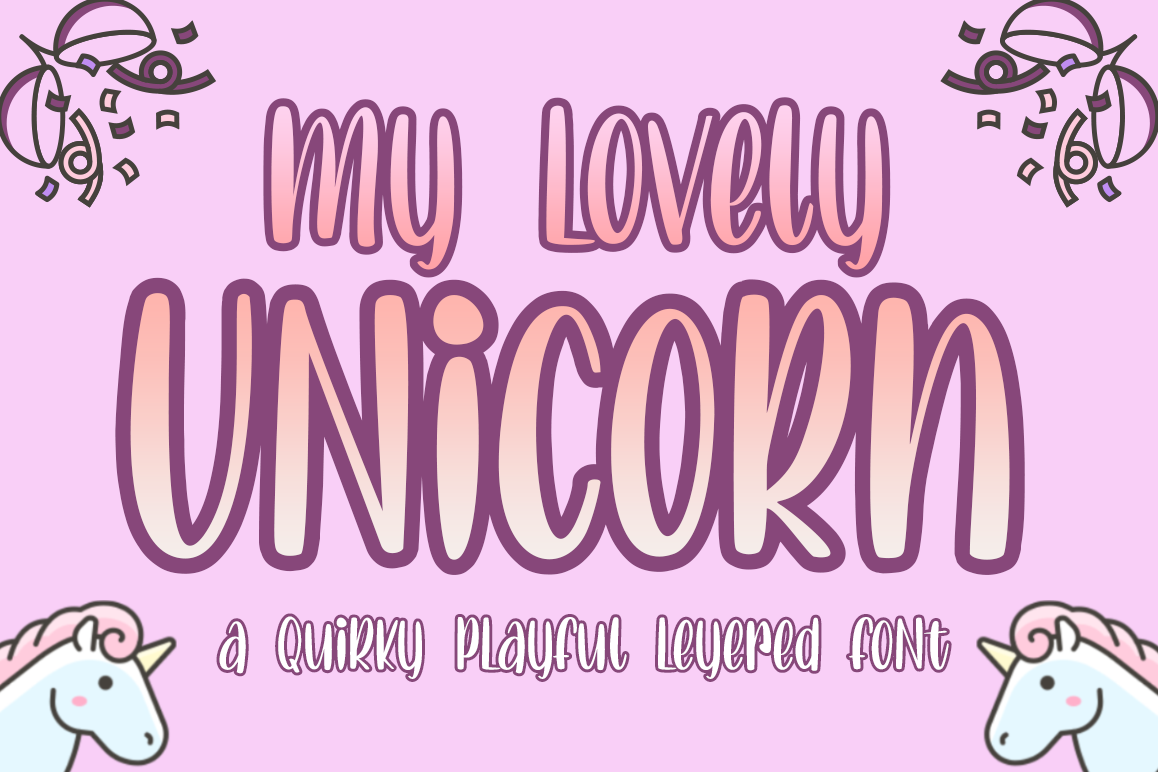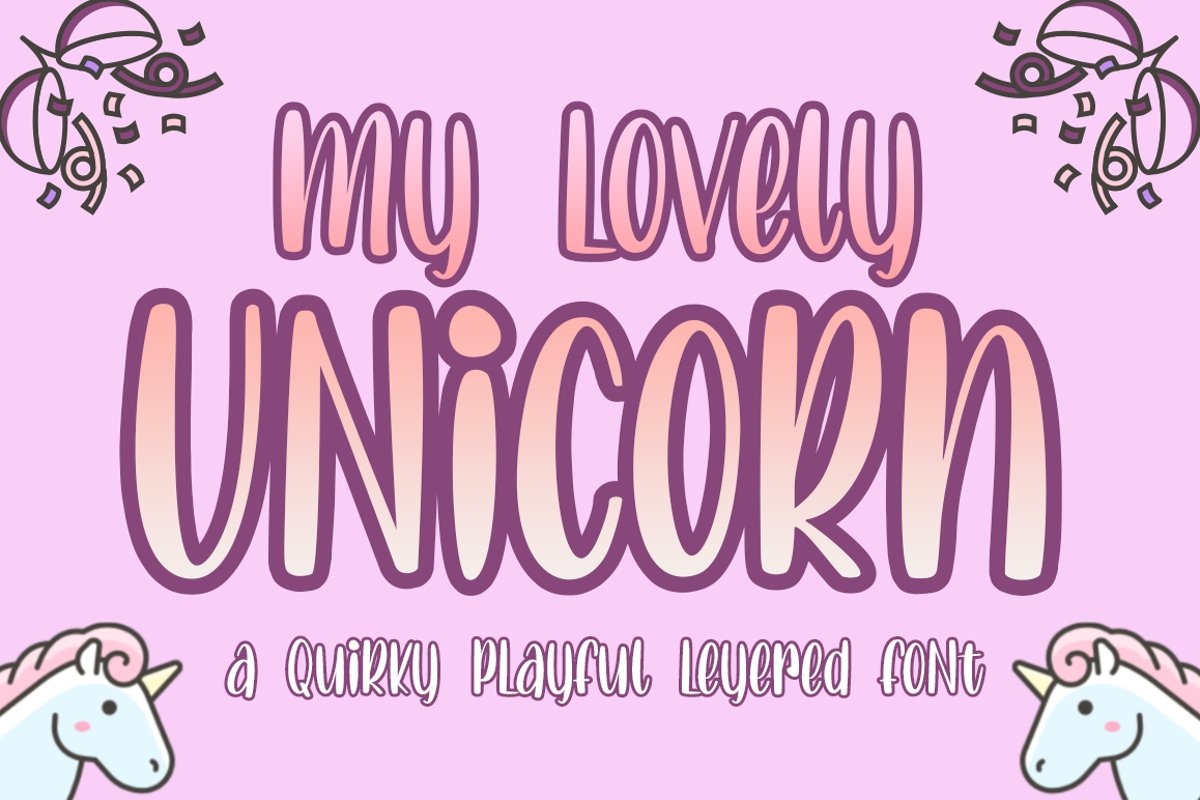
Lovely Unicorn the Quirky Playful Font
Lovely Unicorn
Lovely Unicorn Shadow
Lovely Unicorn Slant
I would like to present my new collection font with Quirky display style.
Lovely Unicorn comes with natural taste of handwritten. with the real hand done I created them, also additional Shadow for a layered font to make good sensation feel.
When you type with this font, I believe you will enjoy the sensation of the natural feel of this font, equipped with ligatures and extrude features make the display even stronger for your projects such as posters, logos, advertisements, book covers and all brands for your requirement.
• Shadow for a second layer font